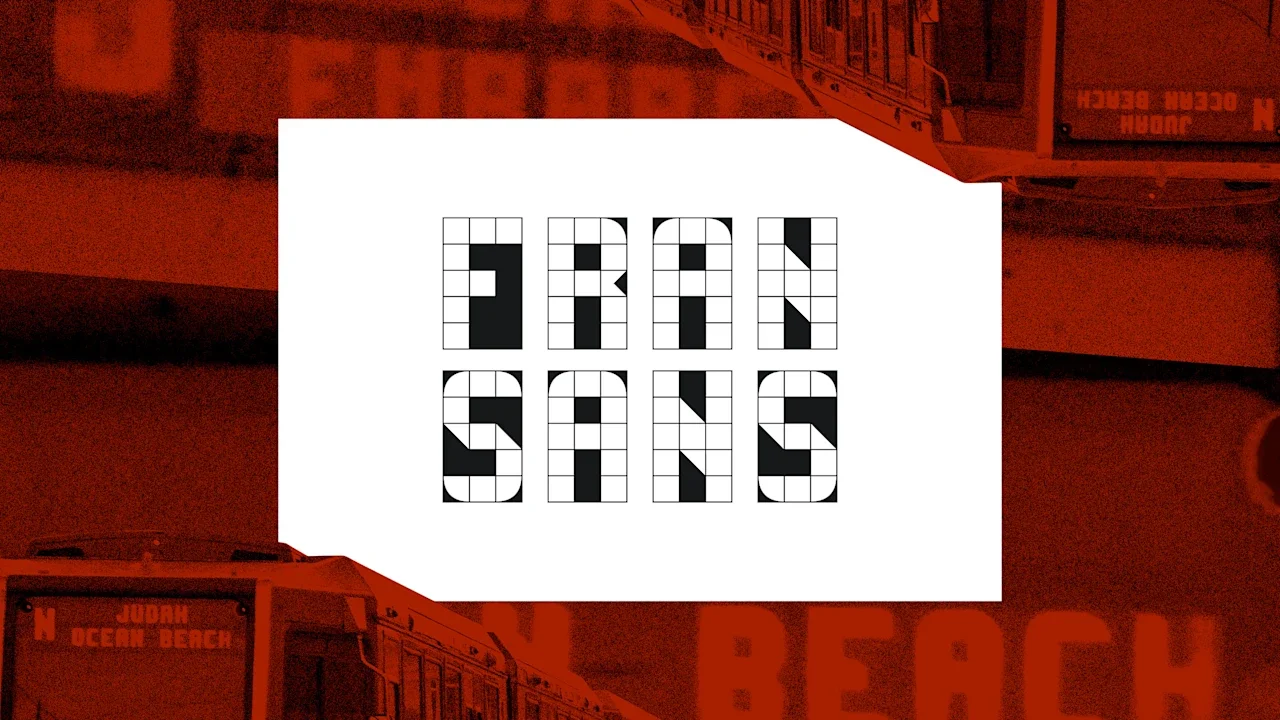
This charming new font is a love letter to San Francisco’s public transit
Most people don’t give the display screens on their commuter trains a second thought, but for designer Emily Sneddon, they’ve proved to be a well of inspiration.
Sneddon lived in San Francisco, where she worked at the design agency Collins, from 2021 until this year when she moved back to her home country of Australia. She designed Fran Sans, her first ever font, after noticing the display on San Francisco Municipal Transportation Agency’s (SFMTA) recently retired Muni Metro Breda Light Rail Vehicle.
Unlike New York City, which handles its public transit through a single agency, the Metropolitan Transportation Authority (MTA), public transportation in San Francisco and the Bay Area is split between multiple independent public agencies, like SFMTA, Bay Area Rapid Transit (BART), and Caltrain, a commuter rail. That means there’s no de facto official font for public transportation in the Bay Area as there is in New York City with Helvetica, the official font of the city’s unified Metropolitan Transportation Authority (MTA).
So Sneddon made her own.
The font that became Fran Sans started first as a project documenting sans typography around San Francisco. The lettering from the train car display was supposed to be used on a zine cover—then it turned into a full-blown font.
Sneddon designed Fran Sans on a 3×5 grid after a monthslong research project that included a visit to SFMTA’s Electronics Shop at Balboa Park, consultation with Gary Wallberg, a senior engineer who designed the display signs in 1999, and a survey of modular typography curated by Letterform Archive, which is based in San Francisco.
“For me it wasn’t enough simply to create a 1:1 without digging further to find out more about the original designer that inspired this work,” says Sneddon. “It’s a myth that we’ve all seemed to have subscribed to that everything you’d want to know about is available online. But so many stories are all around us, and they haven’t been documented anywhere. The story of these displays was one of them.”
The original lettering on the displays didn’t have all the characters, as Muni had no need for Qs, Xs, exclamation points, or semicolons, so Sneddon had to make her own. For now there are no lowercase letters, as that would require a different grid, and she also hasn’t managed to come up with a suitable “@” sign yet. Fran Sans comes in three styles: solid, tile, and panel.
SFMTA finished replacing the Breda car with a new model this month that uses LED dot-matrix destination displays, which to Sneddon lack the character of the Breda car lettering. Fran Sans reintroduces some of those typographic quirks, like thin diagonals on the Z, 7, and M. Although those particularities can make the M look like an H at small sizes, they’re also what gives the font its charm.
There’s a perception that San Francisco is a place where people come to make their bread and leave, Sneddon says, from the gold rush in the 1800s to AI today, but moving to San Francisco taught her that there’s “a lot of community, a lot of love for the arts, and a lot of generosity” in the city.